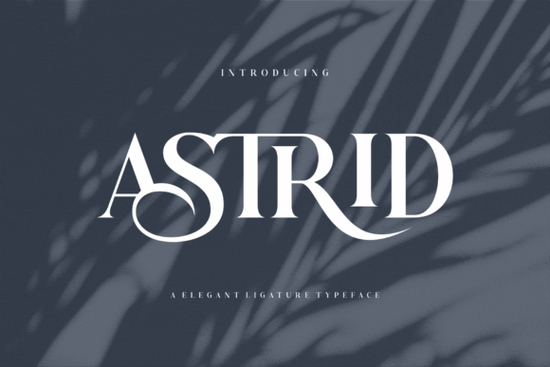
Looking for a serif font that feels both classic and current? Astrid Font is a Astrid typeface designed with graceful letterforms and intricate serifs that bring a refined, polished look to any project. Whether you're working on wedding invitations, branding materials, or print-on-demand designs, this font strikes a balance between timeless elegance and a fresh, modern feel.
Below, I'll walk through what makes Astrid worth considering, where it works best, and how to pair it with other fonts for professional-looking results.
What Makes Astrid Font Stand Out Among Serif Fonts?
Serif fonts are everywhere but not all of them carry the same level of detail. Astrid's defining feature is its intricate serif detailing combined with subtle curves that give each letter a sense of movement. The proportions are carefully balanced, so text set in Astrid reads smoothly at both large display sizes and smaller body text.
Unlike some serif typefaces that lean heavily on tradition, Astrid has a lightness to it. It doesn't feel stiff or overly formal. That makes it versatile enough for:
- Logo design for boutique brands and lifestyle businesses
- Wedding stationery and event invitations
- Social media graphics that need a touch of sophistication
- Book covers and editorial layouts
- Print-on-demand products like mugs, tote bags, and greeting cards
For designers who appreciate a font with character but still want readability, Astrid delivers on both counts.
Who Is Astrid Font Best Suited For?
If you're a small business owner creating your own branding materials, Astrid removes the need to hire a typographer for a polished look. Crafters who sell on Etsy or similar platforms can use it to give their product mockups a more professional edge. Even if you're just a hobbyist making personal projects birthday cards, wall art, or digital planners Astrid adds a layer of quality that's hard to get from free fonts.
Print-on-demand sellers especially benefit from fonts like this one. A well-chosen typeface can be the difference between a design that looks homemade and one that looks professionally crafted. Astrid sits in that sweet spot of decorative enough to catch attention, but clean enough to stay legible on physical products.
How Does Astrid Compare to Other Serif Fonts?
There's no shortage of serif fonts available, so it helps to see how Astrid fits among similar options. If you're exploring different styles, here are a few worth looking at:
- Afterglow Font Afterglow font leans into a warm, romantic aesthetic with softer strokes, making it a strong choice for invitation suites and feminine branding.
- Bride Font Bride font is designed with elegance in mind and works beautifully for formal event materials and upscale packaging.
- Mosca Laroke font brings a more expressive, editorial feel that pairs well with modern layouts and bold photography.
- Unexpected Typewriter font blends typewriter texture with serif structure, offering a vintage-meets-modern personality.
Astrid holds its own in this lineup by staying versatile. It's not as niche as a typewriter-style font and not as formal as a dedicated wedding typeface. That flexibility is exactly what makes it useful across different types of projects.
What Are the Best Ways to Pair Astrid With Other Fonts?
Good font pairing takes a design from decent to memorable. Here are some practical pairing ideas:
- Astrid + a clean sans-serif: Use Astrid for headings and a minimal sans-serif for body text. This creates a clear visual hierarchy without competing styles.
- Astrid + a script font: For wedding invitations or romantic branding, combine Astrid with a flowing script for a layered, elegant composition.
- Astrid + a monospace font: Mixing a refined serif with a monospace typeface creates an interesting contrast that works well for editorial and creative layouts.
The key is to let Astrid be the star of the show and choose supporting fonts that complement without overshadowing it.